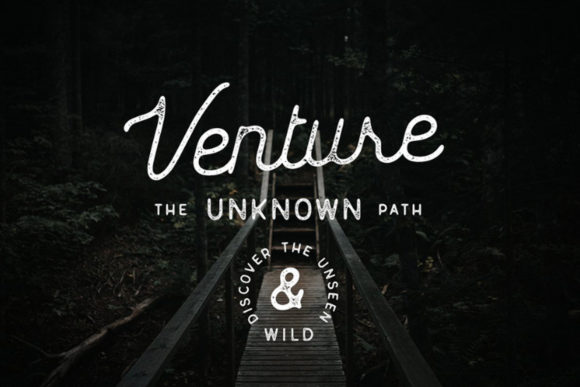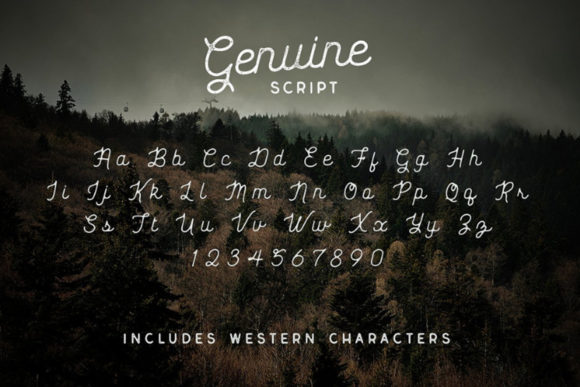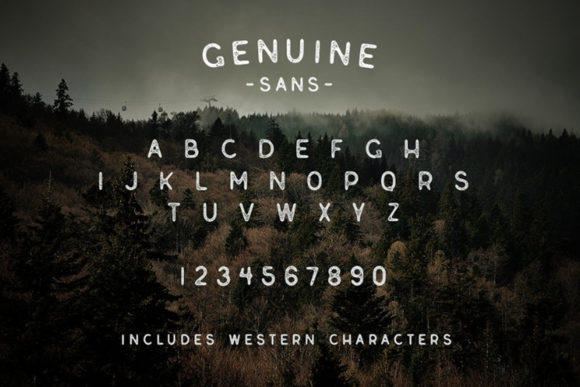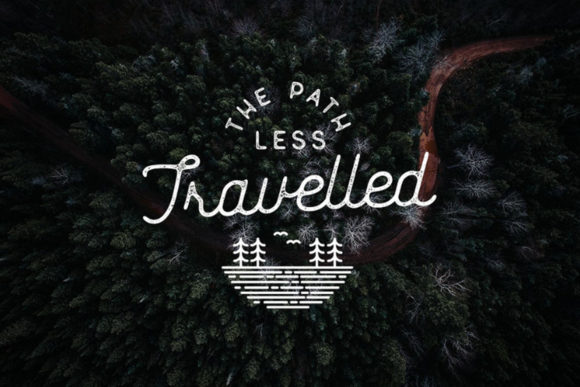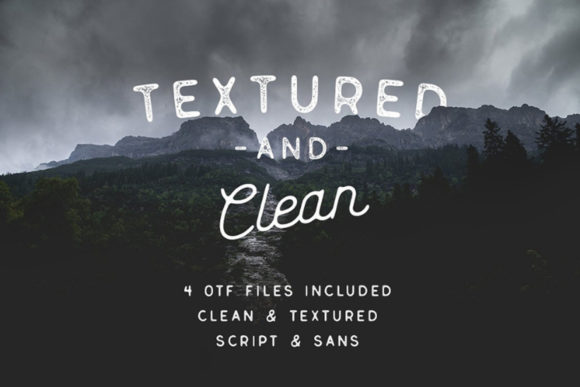
Genuine Font: A Playful Nostalgic Typeface for Your Design Needs
Are you looking for a font that can transport your designs back in time? Look no further than the Genuine Font! This incredible typeface is designed to evoke a sense of nostalgia and playfulness, making it perfect for designers and crafters who want to add a retro touch to their work. In this article, we’ll take a closer look at the Genuine Font, its unique features, and how you can use it to take your designs to the next level.
Back to the Future with Genuine Font
The Genuine Font is a carefully crafted typeface that is designed to deliver an incredible vintage aesthetic. With its playful and nostalgic feel, it’s perfect for designers who want to create designs that are reminiscent of a bygone era. Whether you’re working on a logo, a poster, or a packaging design, the Genuine Font is sure to add a special touch to your work.
Four Unique Font Styles to Choose From
One of the standout features of the Genuine Font is that it comes in four unique font styles: clean, textured, script, and sans serif. This means that you can choose the style that best fits your design needs and preferences. Whether you’re looking for a font that’s sleek and modern or one that’s a little more rough around the edges, the Genuine Font has got you covered.
Clean Font Style: Sleek and Modern
The clean font style is perfect for designers who want a font that’s sleek and modern. With its smooth lines and clean edges, it’s ideal for designs where you want the font to blend in seamlessly with the rest of the design. Whether you’re working on a website, a brochure, or a business card, the clean font style is a great choice.
Textured Font Style: Adding a Touch of Authenticity
The textured font style is perfect for designers who want to add a touch of authenticity to their designs. With its rough, textured look, it’s ideal for designs where you want to create a sense of nostalgia or vintage charm. Whether you’re working on a packaging design, a poster, or a flyer, the textured font style is sure to add a unique touch.
Script Font Style: Elegant and Sophisticated
The script font style is perfect for designers who want to add a touch of elegance and sophistication to their designs. With its flowing lines and cursive look, it’s ideal for designs where you want to create a sense of luxury or high-end quality. Whether you’re working on a logo, a wedding invitation, or a product label, the script font style is a great choice.
Sans Serif Font Style: Simple and Bold
The sans serif font style is perfect for designers who want a font that’s simple and bold. With its clean lines and lack of embellishments, it’s ideal for designs where you want the font to stand out and make a statement. Whether you’re working on a poster, a flyer, or a social media graphic, the sans serif font style is a great choice.
Using Genuine Font in Your Designs
So, how can you use the Genuine Font in your designs? The possibilities are endless! Here are a few ideas to get you started:
- Use the Genuine Font to create a retro-style logo for your business or brand.
- Add a touch of nostalgia to your packaging designs with the textured font style.
- Use the script font style to create elegant and sophisticated wedding invitations or product labels.
- Create a bold and eye-catching poster or flyer with the sans serif font style.
In conclusion, the Genuine Font is a versatile and playful typeface that’s perfect for designers and crafters who want to add a retro touch to their work. With its four unique font styles, it’s ideal for a wide range of design projects, from logos and packaging designs to posters and social media graphics. So why not give it a try and see how it can take your designs to the next level?
Whether you’re a seasoned designer or just starting out, the Genuine Font is a great addition to your font library. So go ahead, get creative, and add a touch of nostalgia to your designs with the Genuine Font!